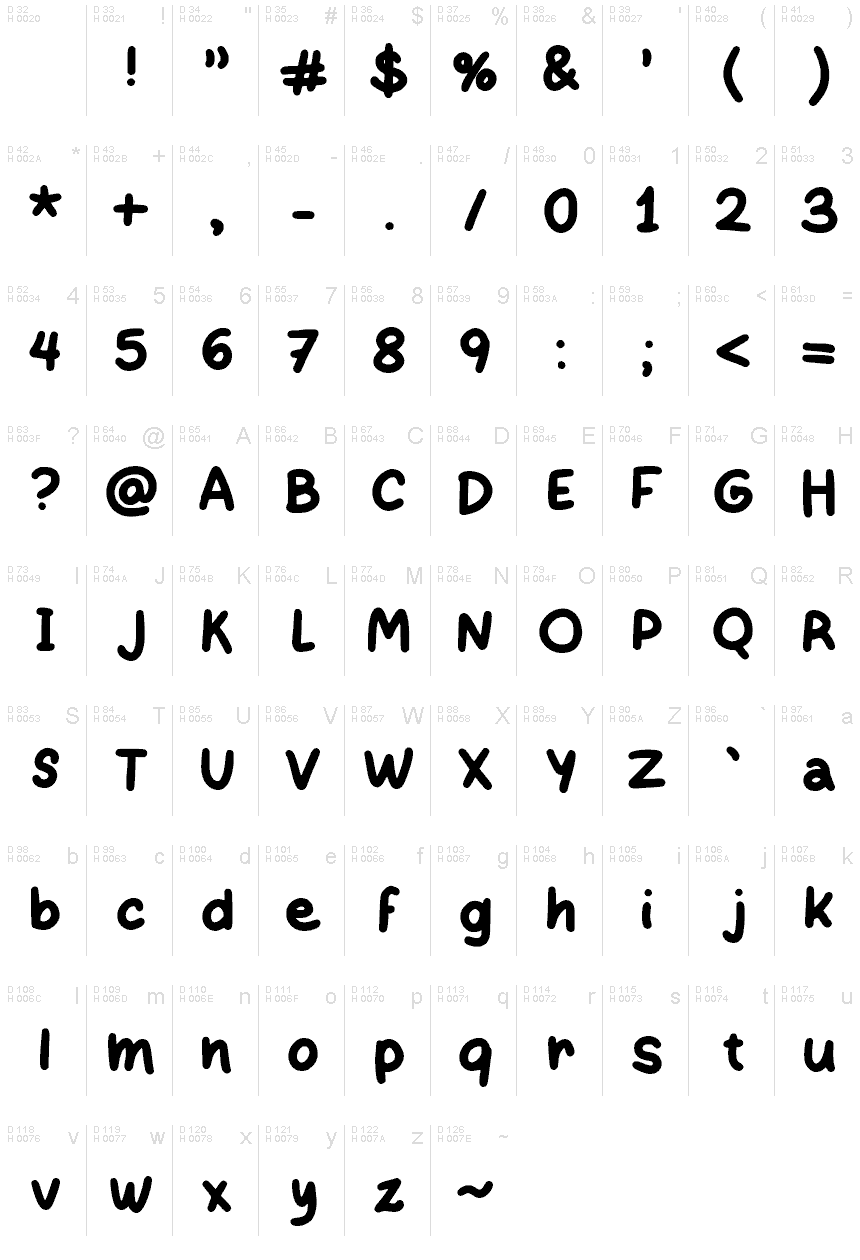
Peperritos Regular
Peperritos font is the work of designer Elena Paz Salazar. It is a free handwritten font that has casual, rounded, and inviting characters. Each letter is friendly with a modern feel which makes the typeface particularly versatile. The rounded elements look easy on the eye in both long and short content, while their color intensity can be further manipulated to achieve a different visual effect.
Peperritos can be used on platforms such as social media for eye-grabbing posts or Instagram stories followed by call-to-action buttons. Use it in web design, blog post banners, website footers/headers, advertisements, flyers where available space is limited, packaging designs like labels or stickers; announcements like posters and invitation cards; brand identity for logotypes; motivational quotes and text-based artwork.
Peperritos is a font available for personal use at no charge. It features a handwritten style infused with a Y2K kawaii aesthetic. Additionally, the font includes a secondary option adorned with ornaments.